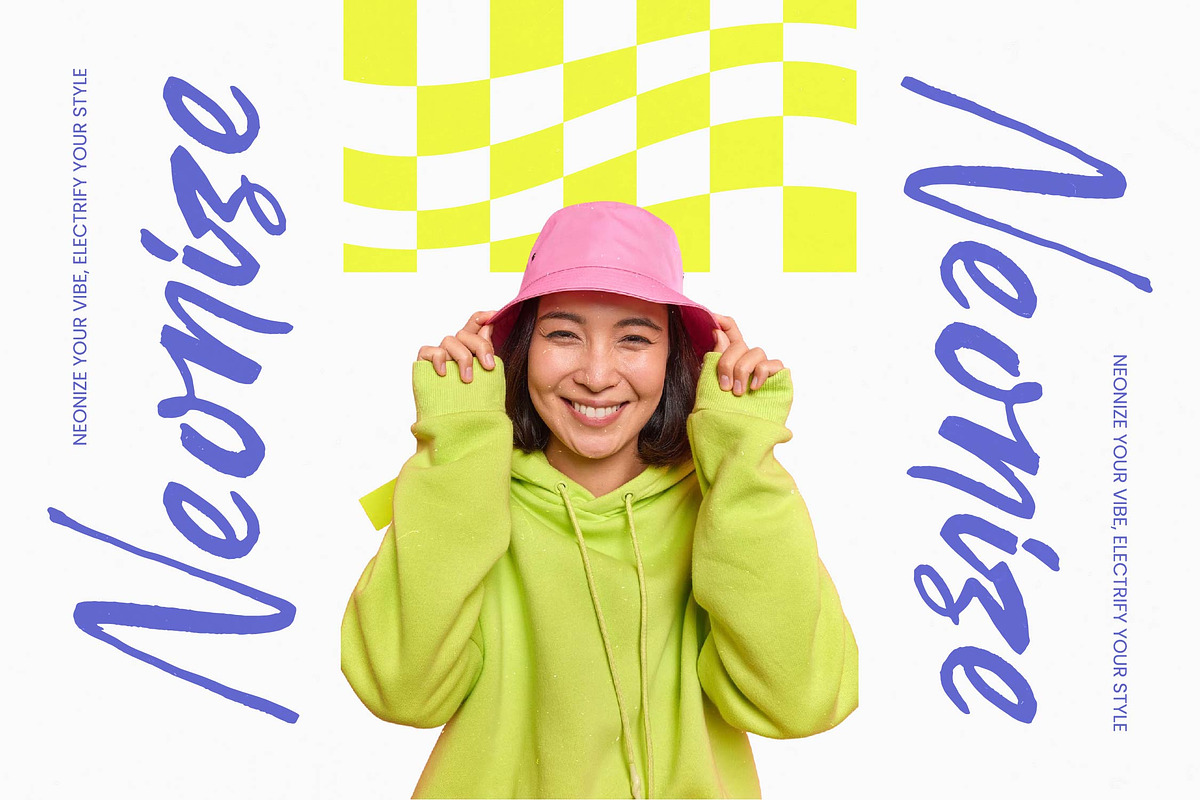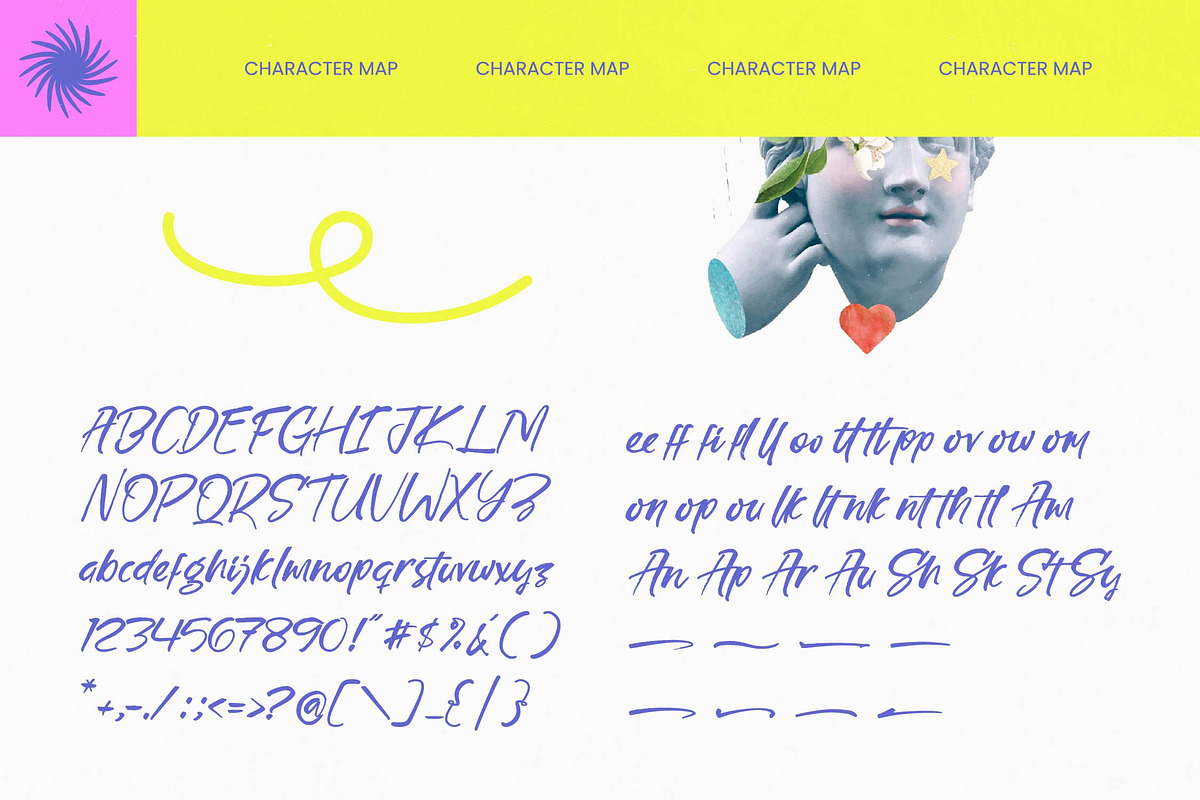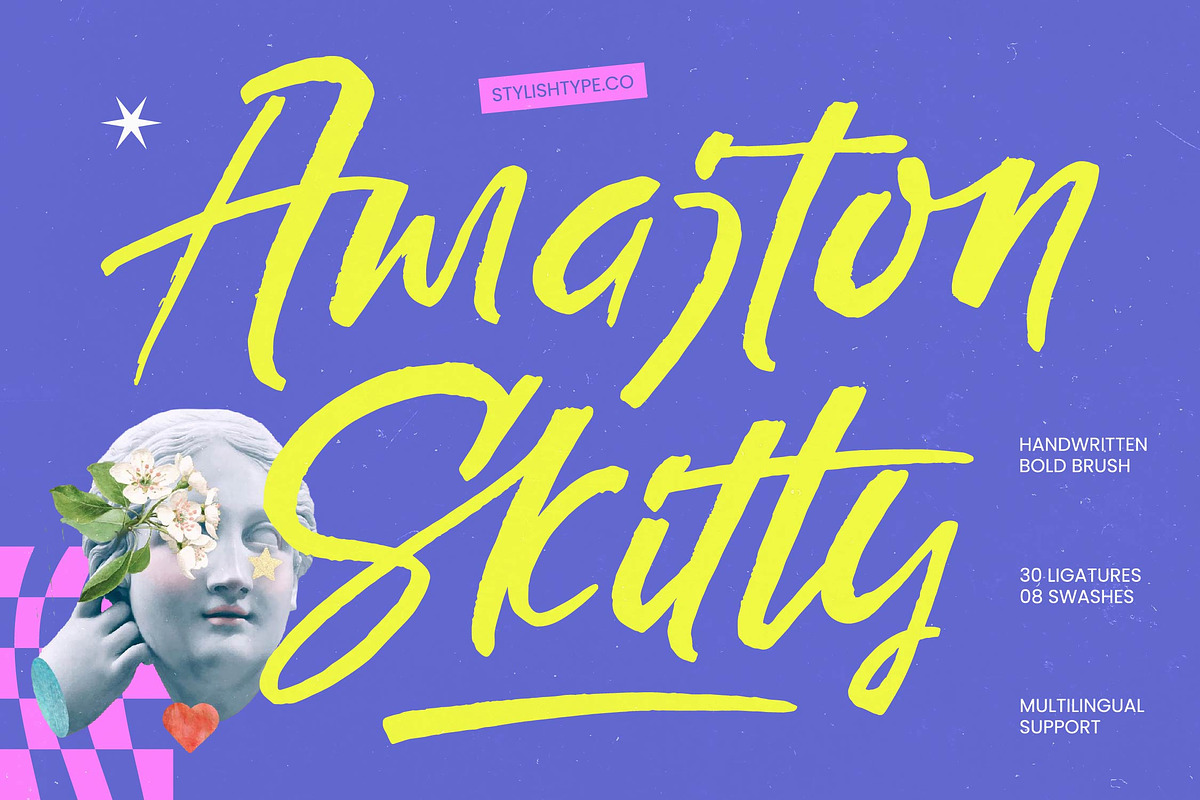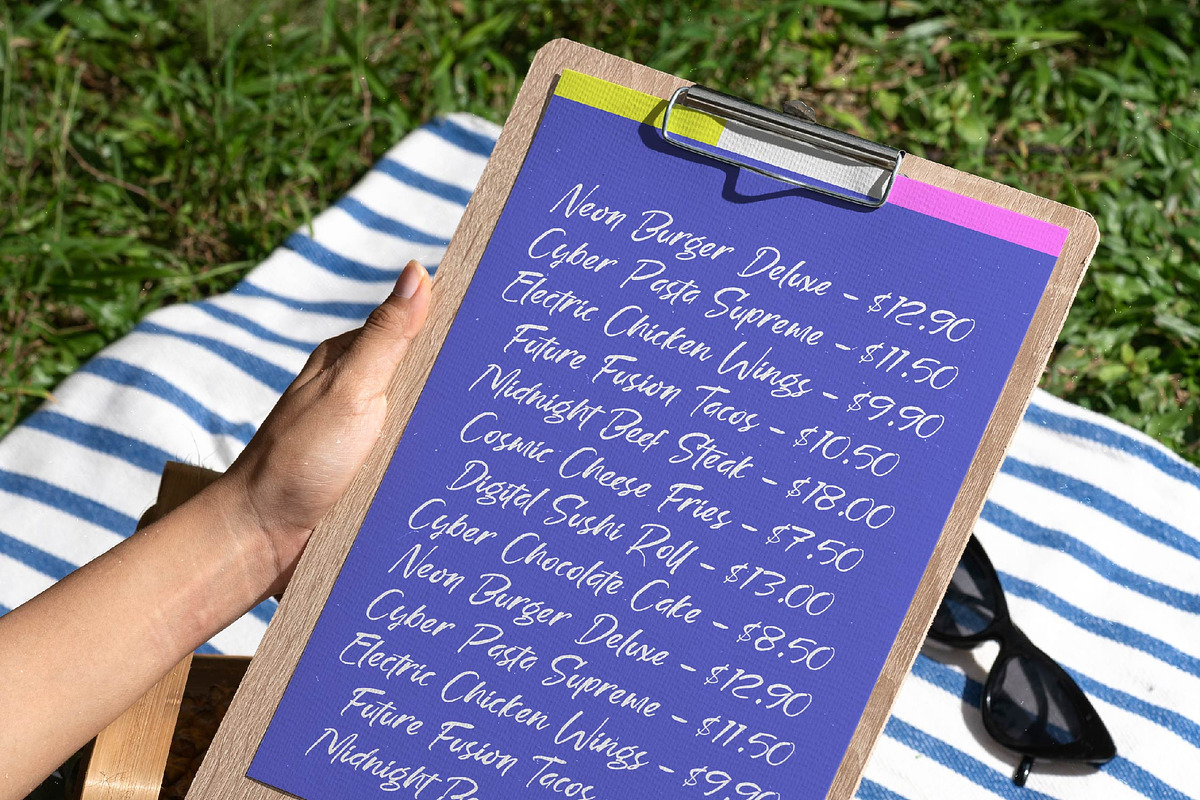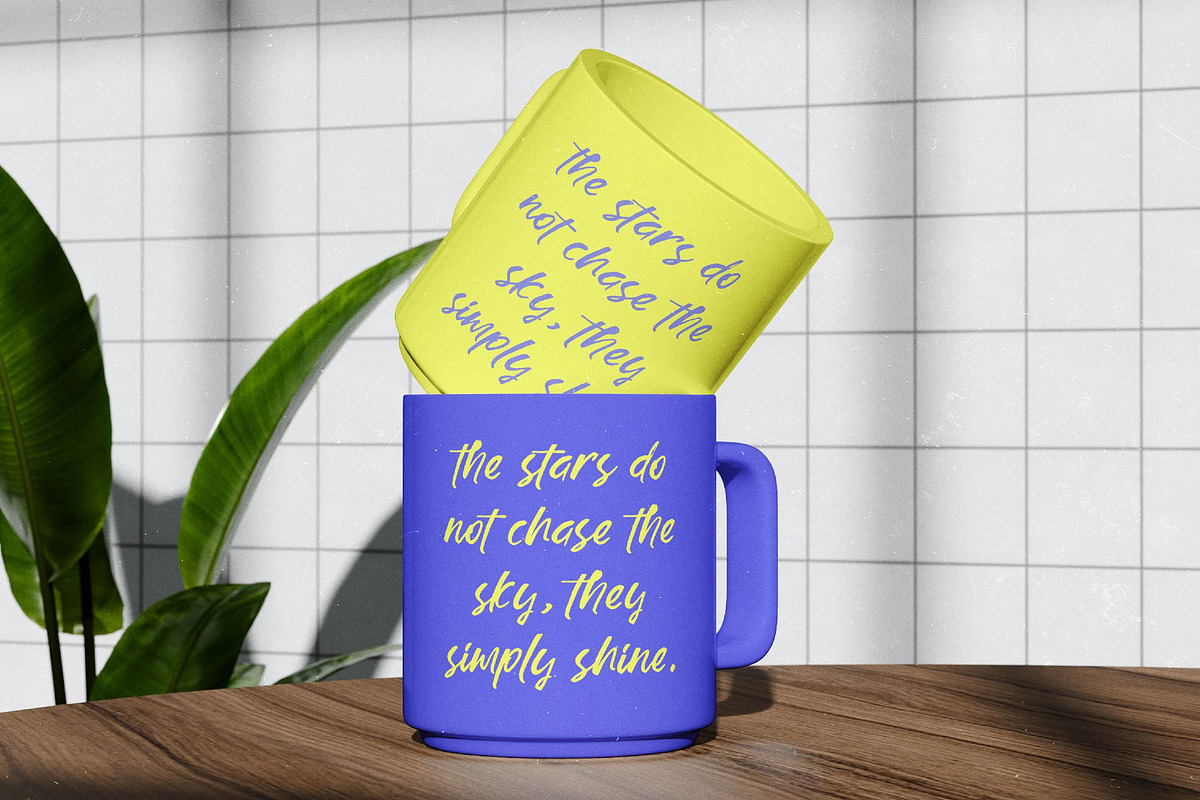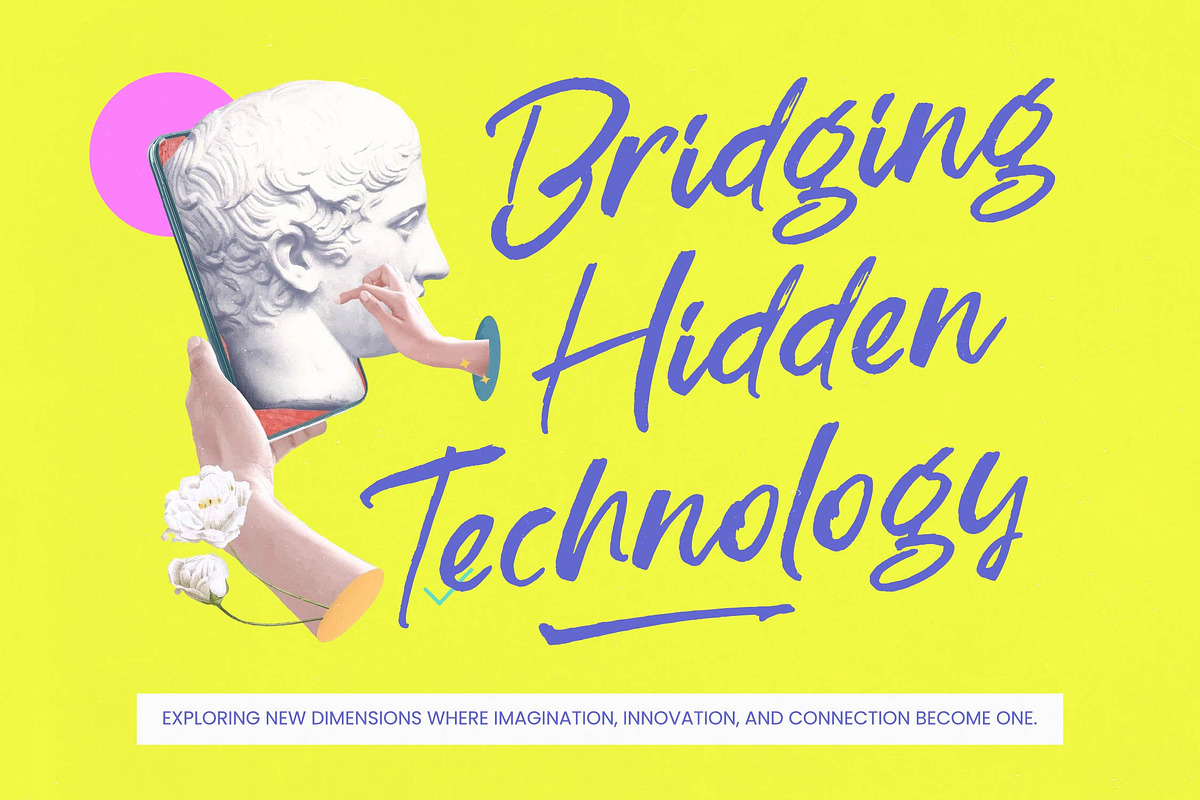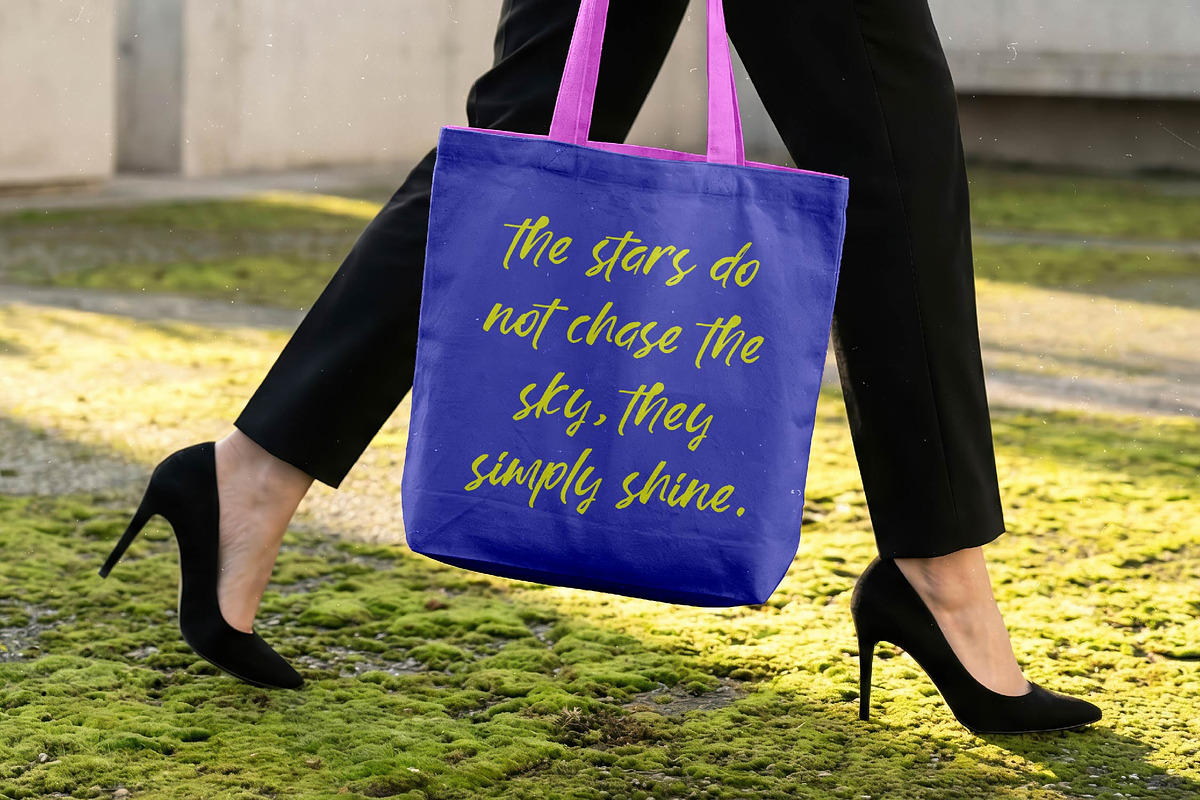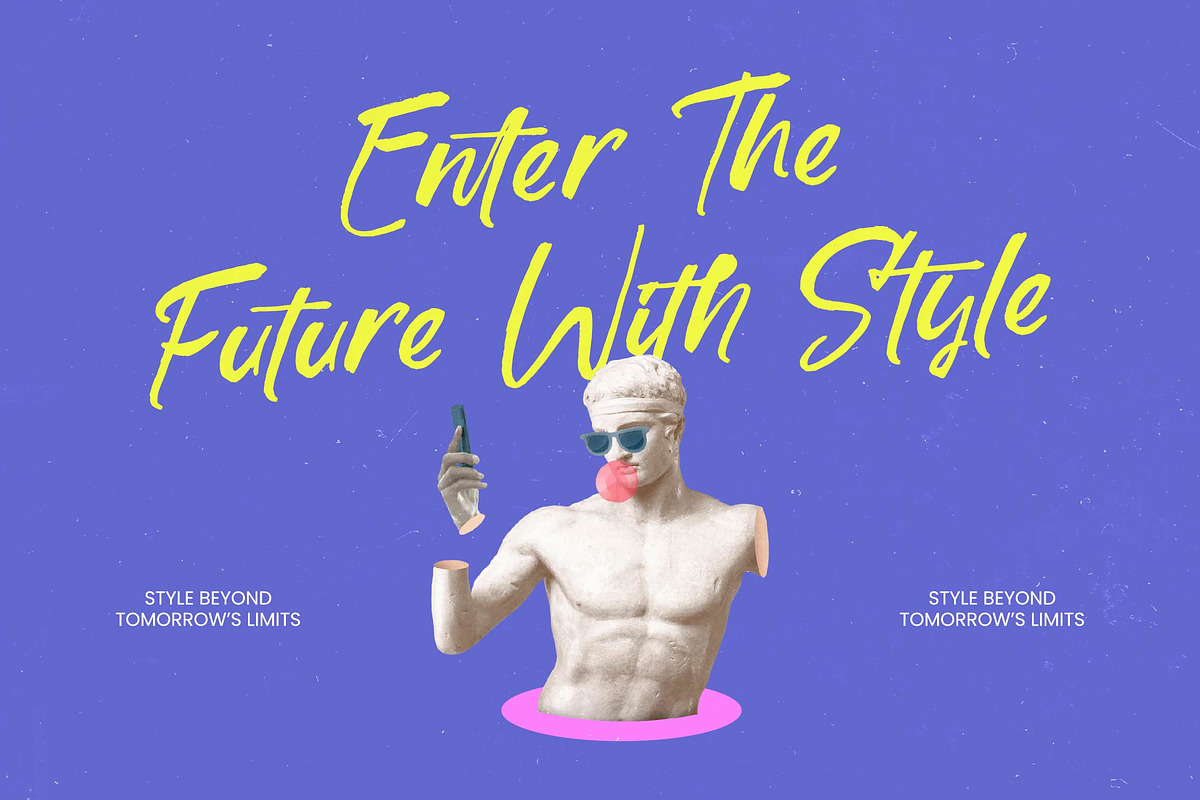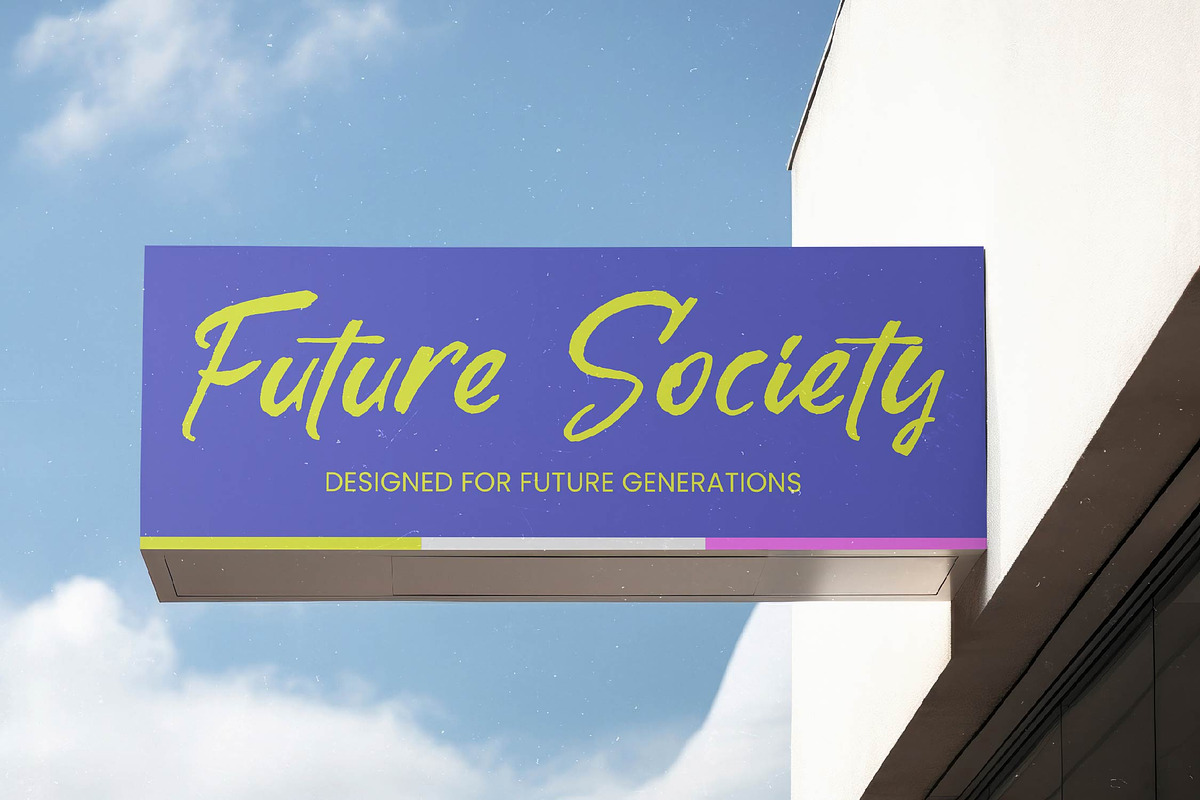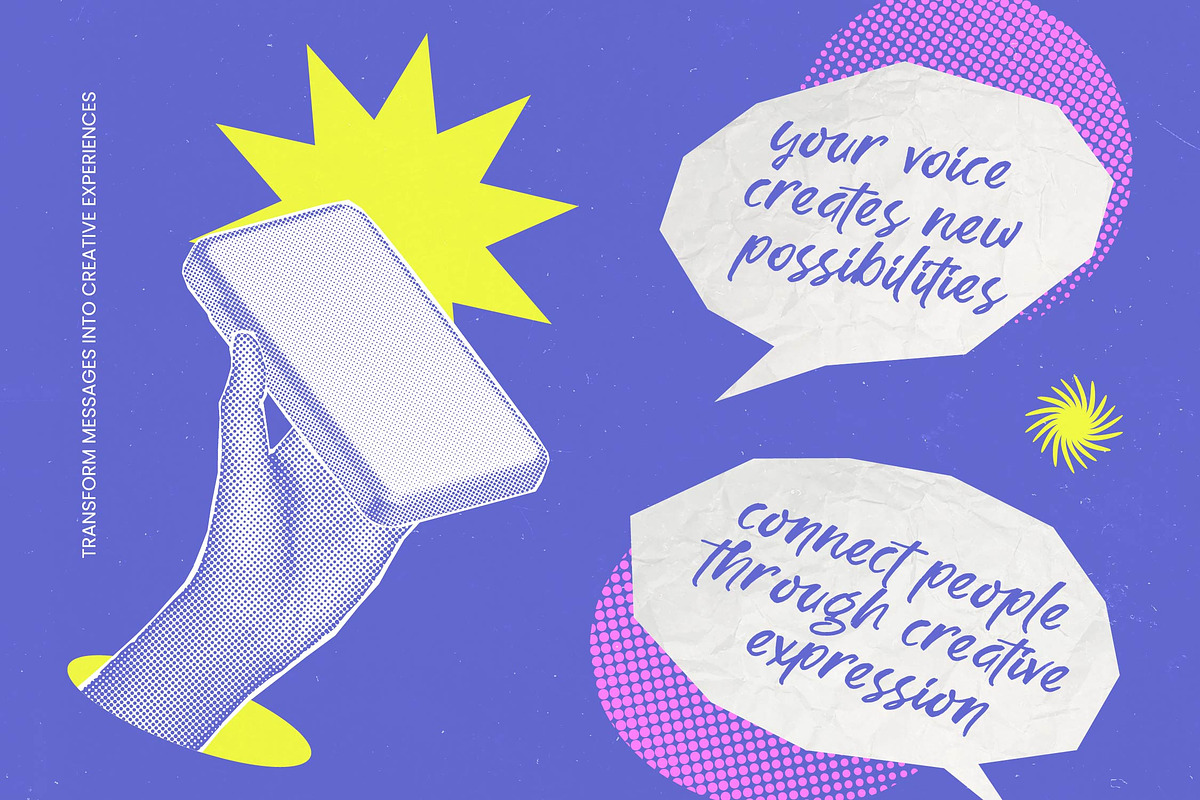
Amajton Skitty Handwritten Bold
Amajton Skitty - Handwritten Bold Brush , Elevate your creative vision with an energetic and expressive aesthetic. Amajton Skitty - Handwritten Bold Brush is a powerhouse of bold personality, offering a raw and organic feel that commands attention instantly. Its high-impact strokes and fluid movements bring a sense of authentic artistry to every layout. Designed for maximum visibility, this font captures the essence of contemporary brush lettering with a modern, urban edge that stands out in a competitive digital landscape.
Experience unparalleled flexibility with a tool designed for the modern global creator. Beyond its striking visual appeal, the font features 30 unique ligatures and 8 stylized swashes that allow for a truly customized, handcrafted look. With its extensive multilingual support, Amajton Skitty - Handwritten Bold Brush adapts seamlessly across global markets, making it incredibly versatile for international projects. This technical depth ensures that your messaging remains consistent and powerful regardless of the language or region.
Unlock the full potential of your brand through strategic and impactful typographic choices. Amajton Skitty - Handwritten Bold Brush is perfectly suited for luxury branding, dynamic packaging, and streetwear apparel design. It is the ideal choice for social media graphics, music posters, and editorial layouts that require a bold, human touch. Whether you are crafting a standout logo or a high-energy advertising campaign, this font provides the visual hierarchy and artistic flair needed to drive engagement and brand recognition.
Transform your design portfolio with a typeface that defines the future of bold creativity. Choosing Amajton Skitty - Handwritten Bold Brush means investing in a versatile design asset that balances raw energy with professional execution. Its high-contrast strokes and natural textures guarantee that your creative projects will leave a lasting impression on any audience. Don't just settle for standard typography; choose a font that speaks with confidence and authenticity to elevate your professional presence and creative output.